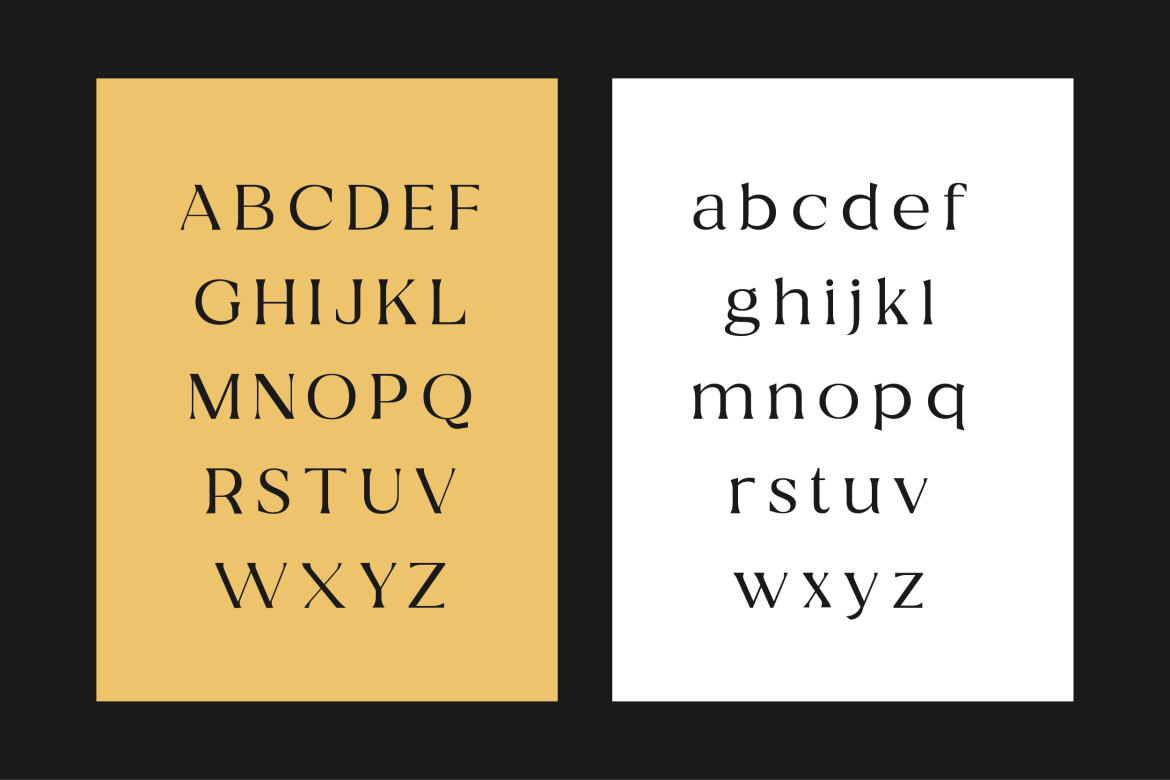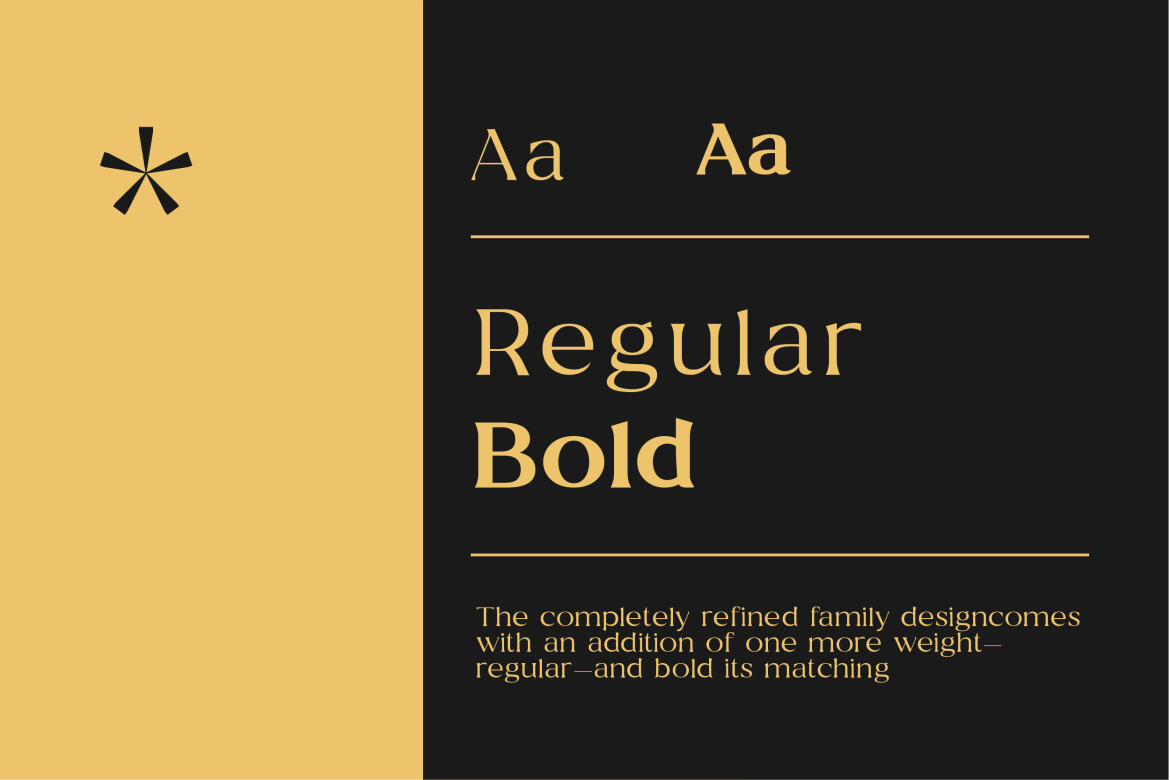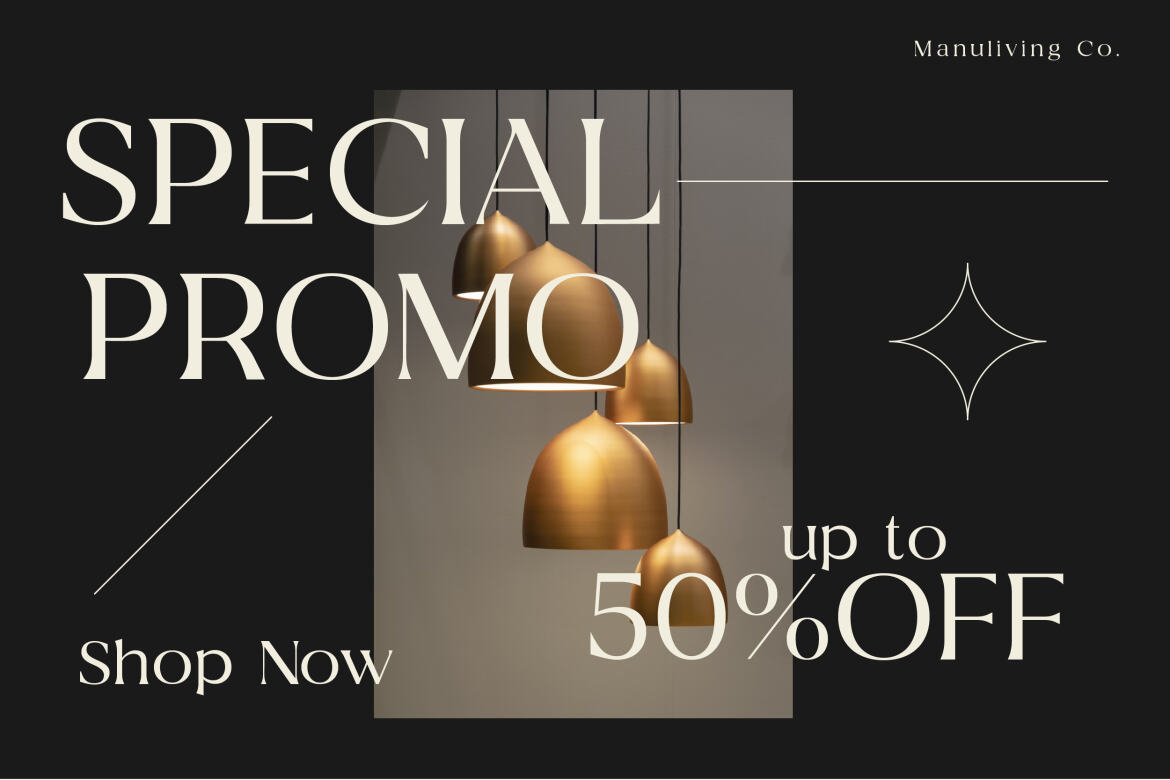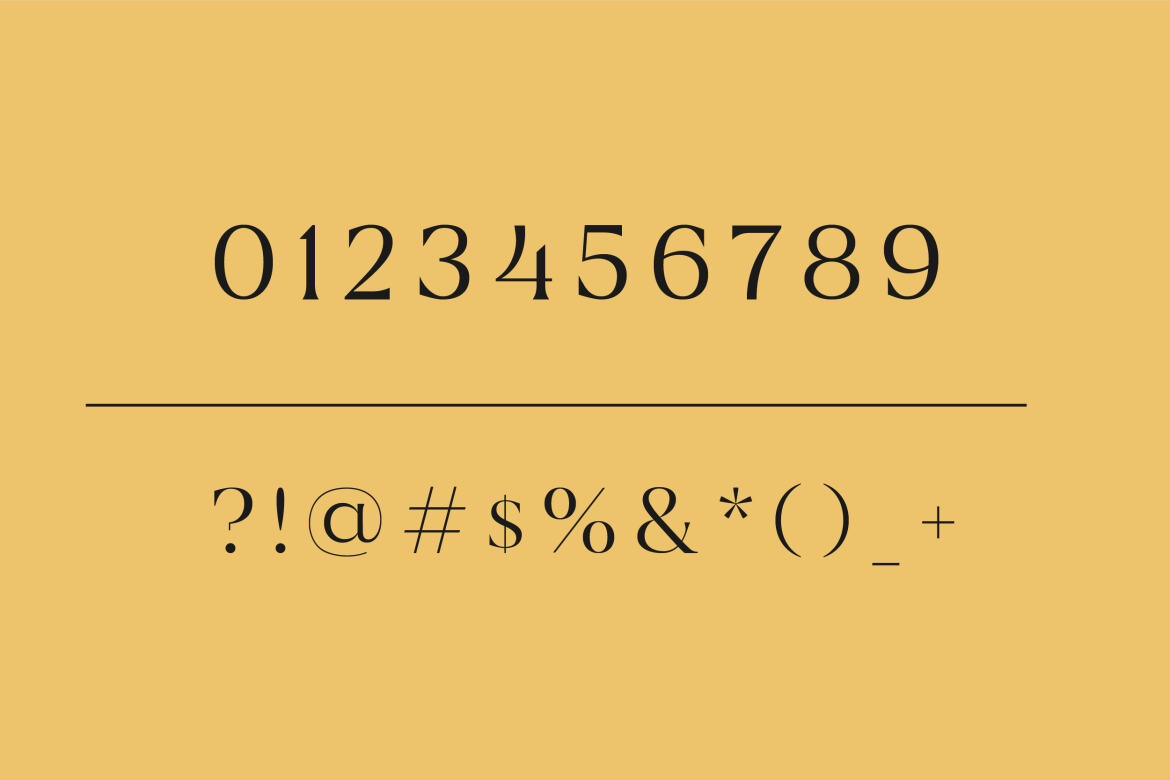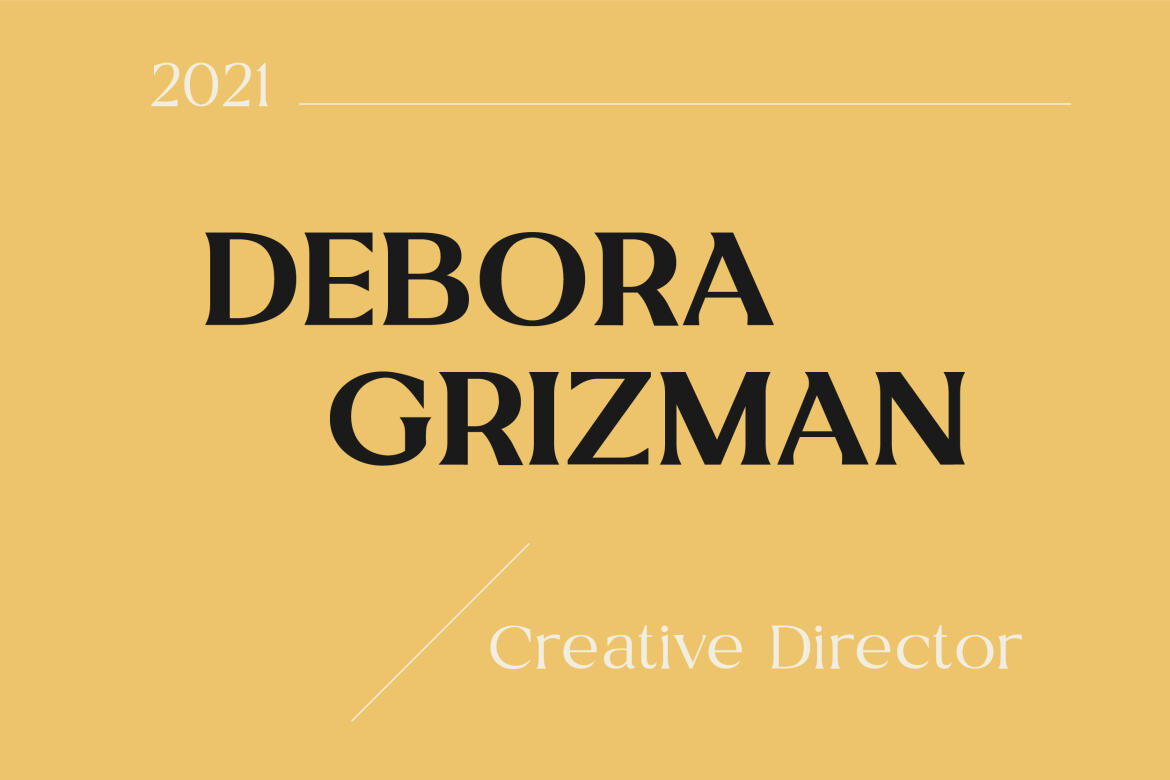
Mustard FREE Serif Stylish Font
Mustard is a modern special serif with a trendy and not stiff style that will make your poster, cover or logo more stunning and stand out!
This font will go well with logos, headlines, titles, minimal layouts.
recommended use Play with your letter spacing to add more class to your designs.